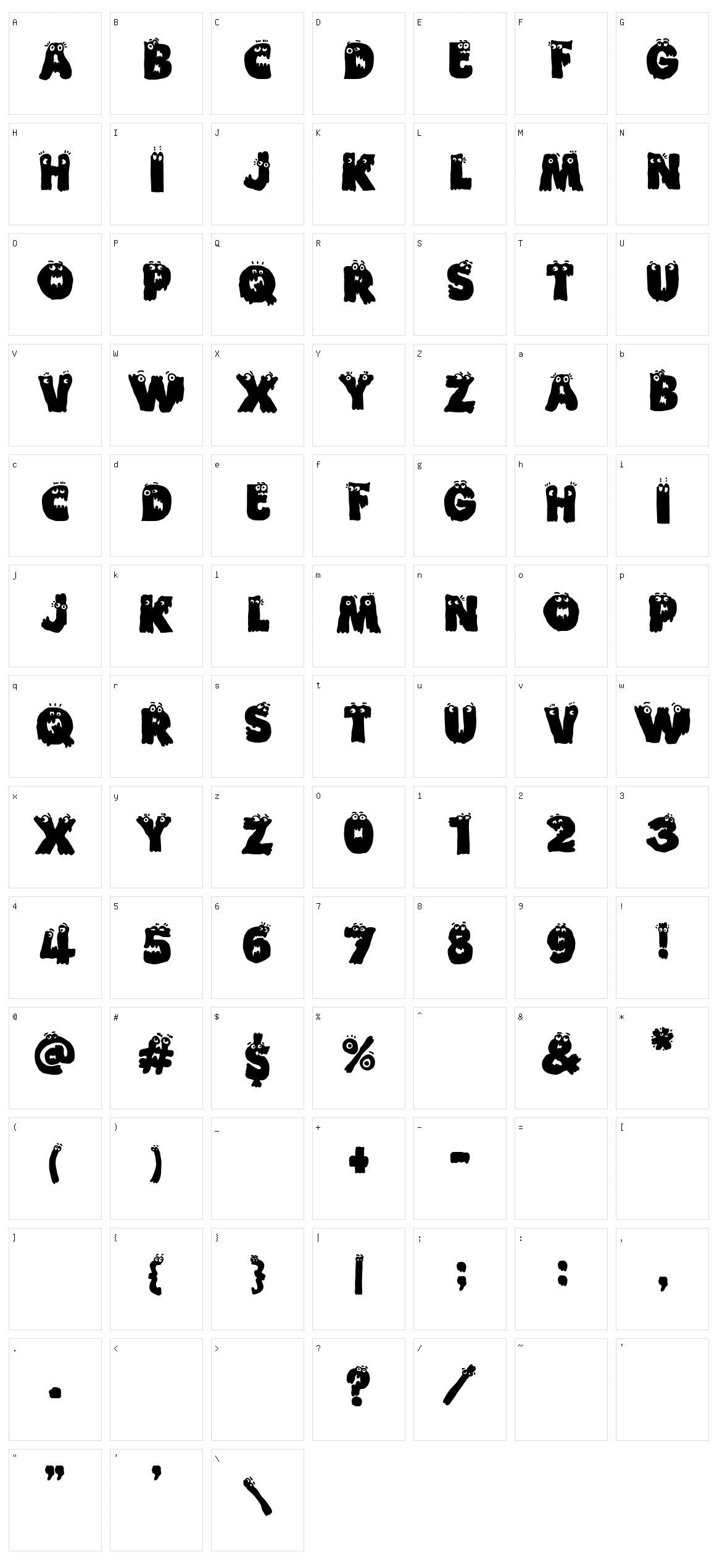
The free font Funny Death is carefully designed by Woodcutter, showcasing a thoughtful balance of creativity and usability and falls under the Cartoon font style. When you download the ZIP file, it contains only 181.3 KB of font files, making it lightweight and quick to download. Please review the license details below to understand permitted usage and distribution rights. If license information is not available, we recommend using this font for personal projects only or contacting the author directly for commercial usage permissions.